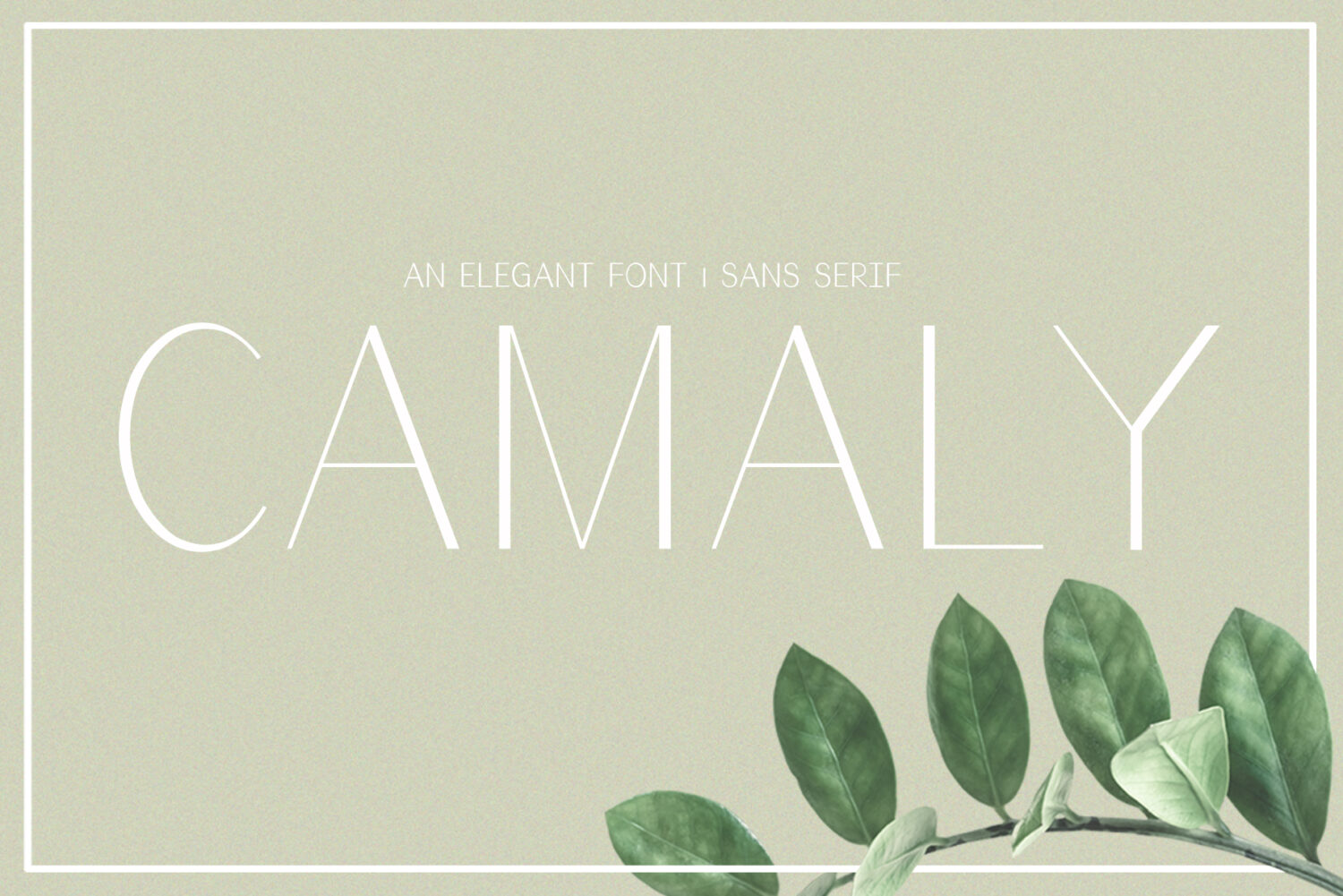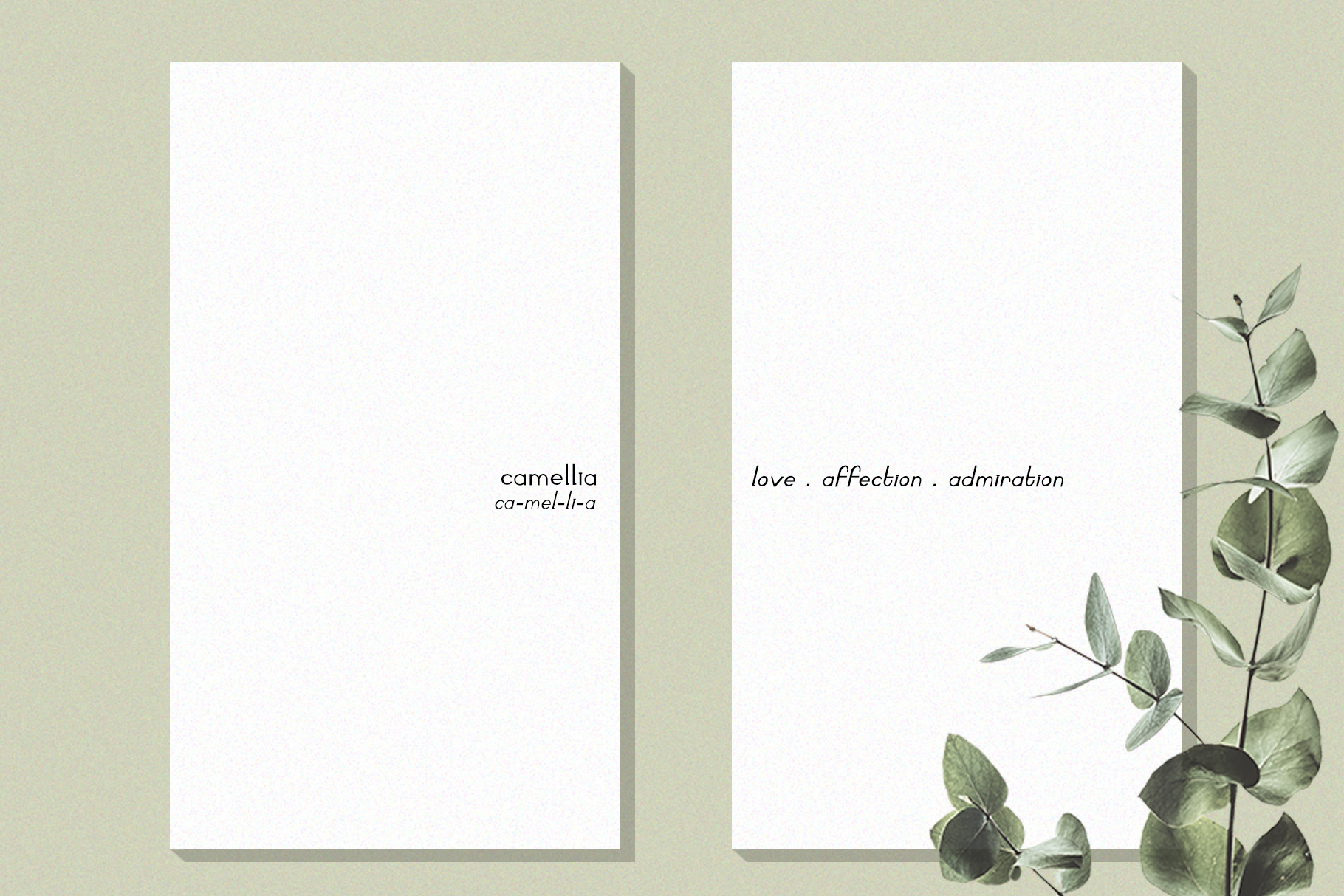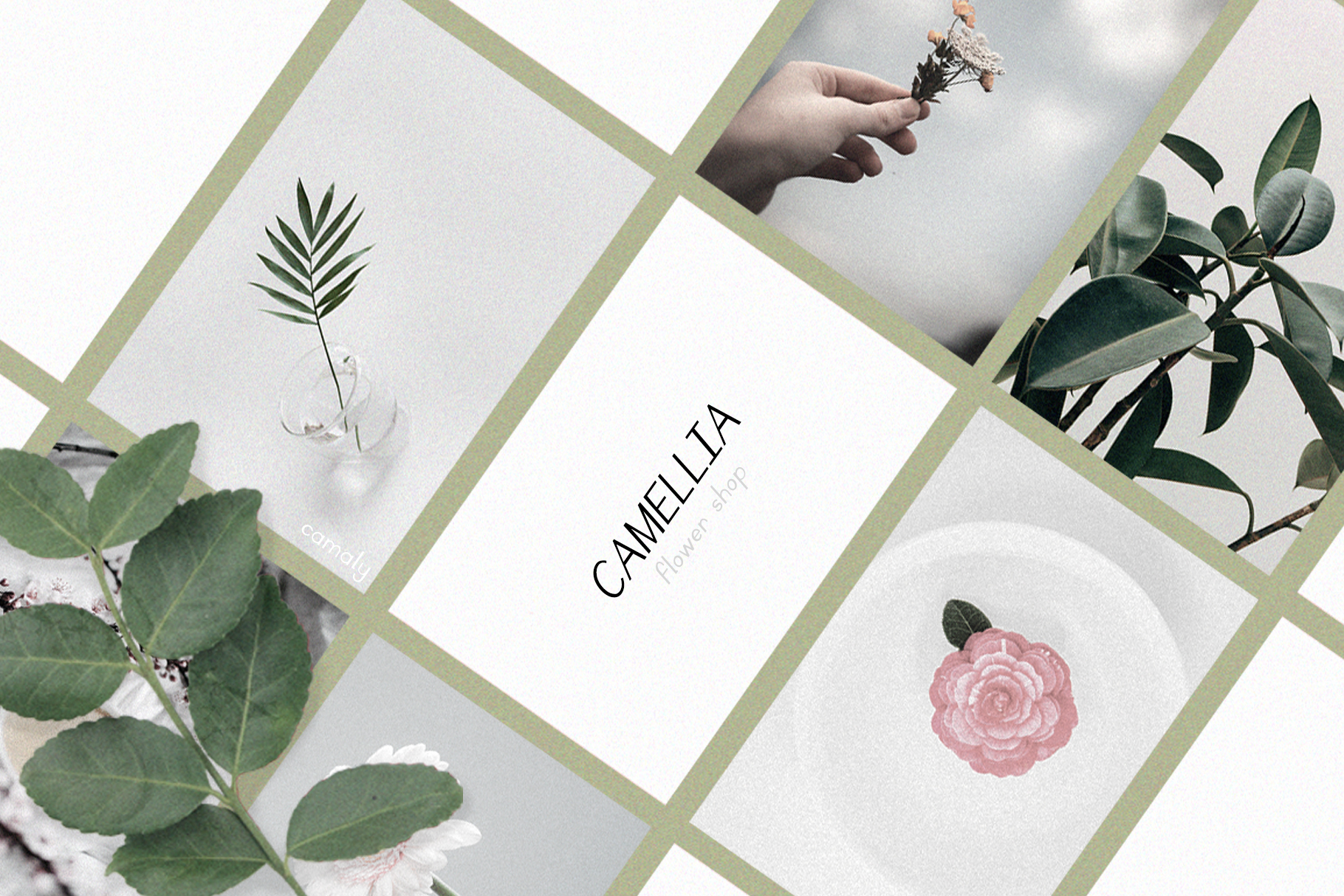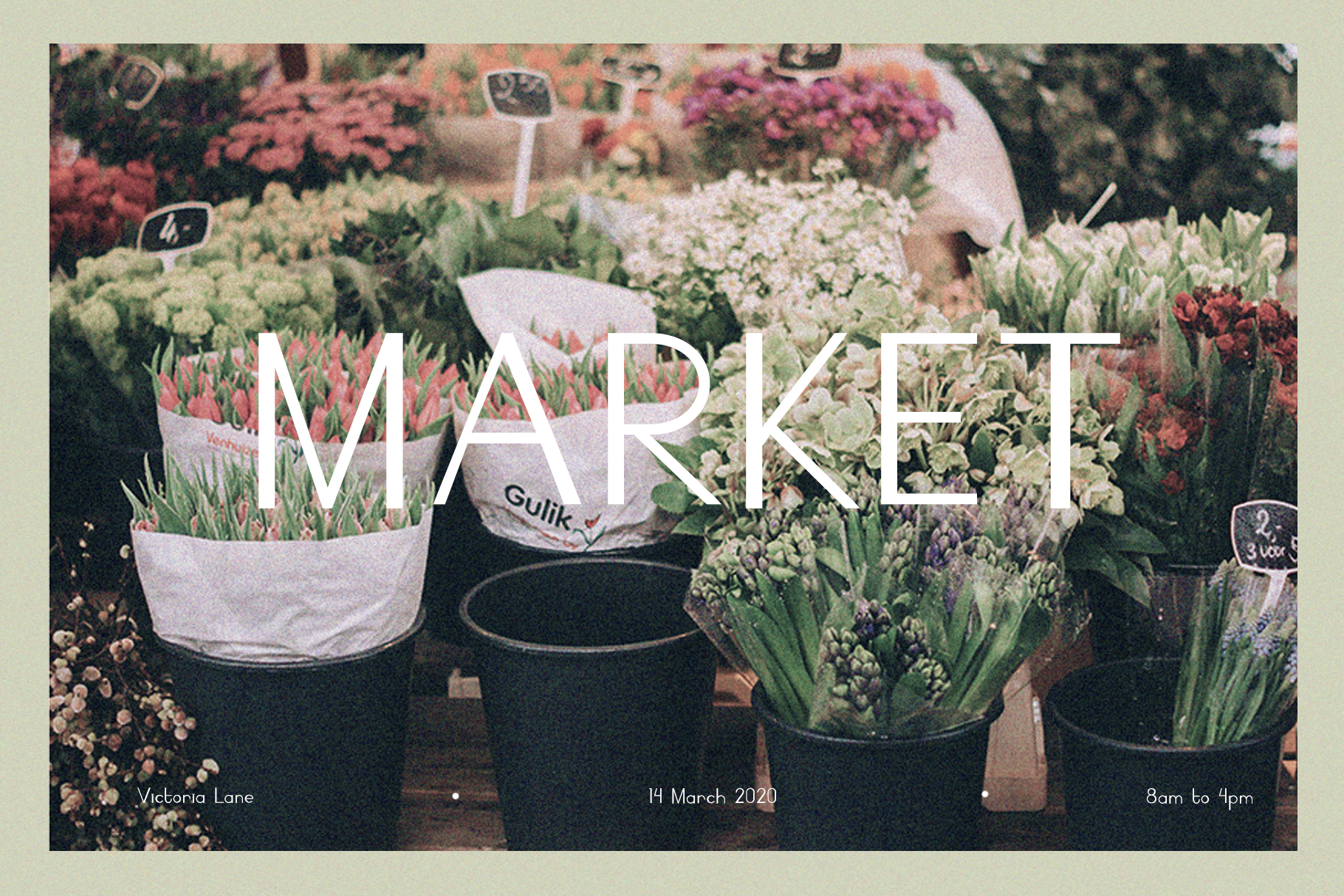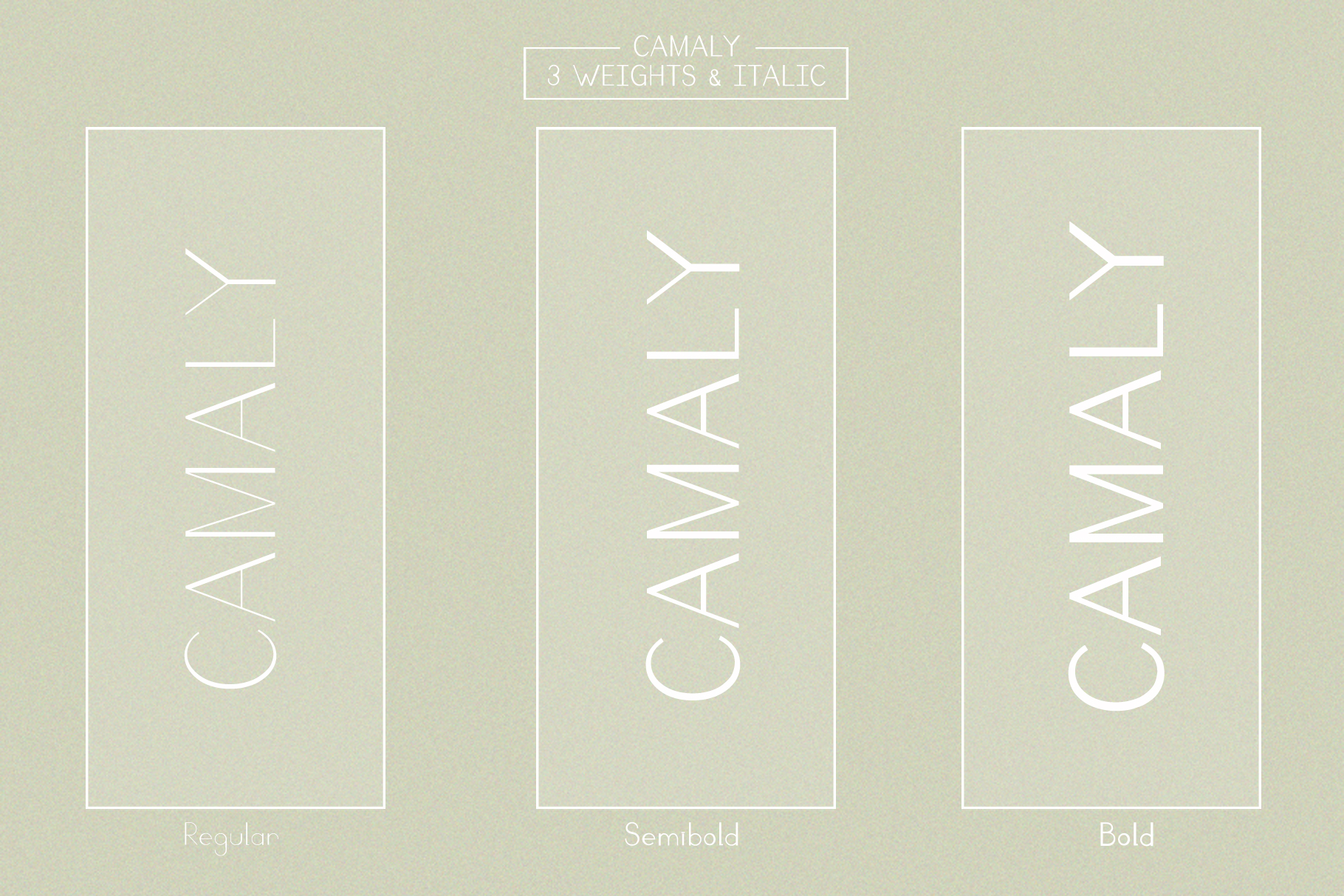
Camaly Free Font
Camaly Free Font is an elegant sans serif font with an incredibly modern style. Fall in love with its unique flavor, and turn any design idea into a piece of art. This free typeface was designed by a talented Jason Ng. If you like it don’t forget to check out the full version.